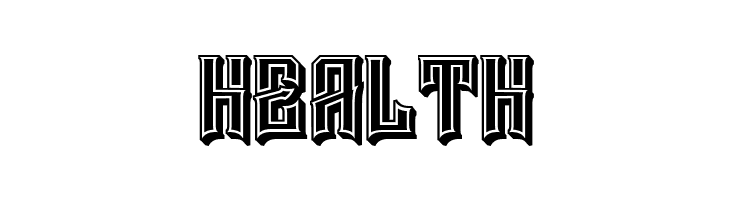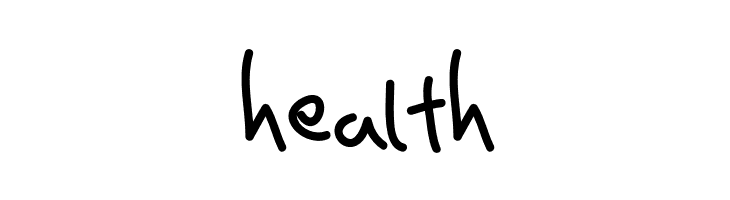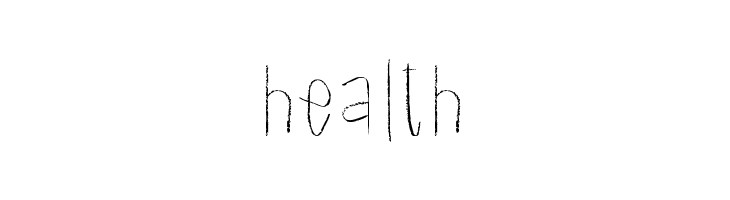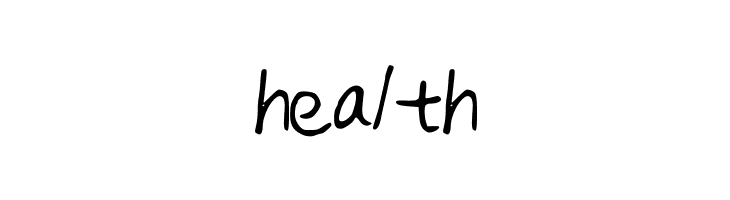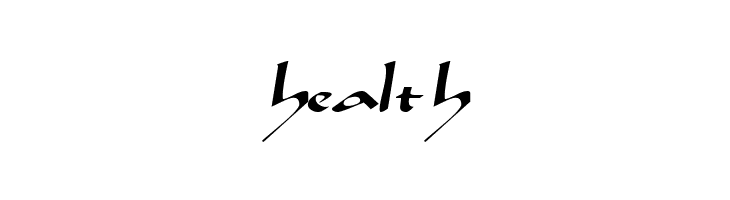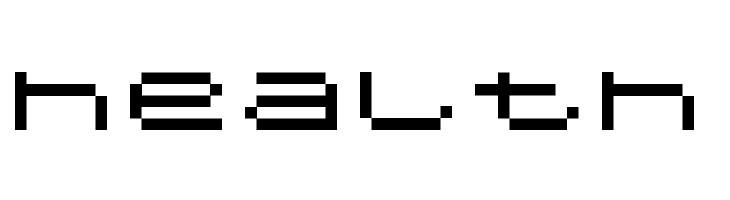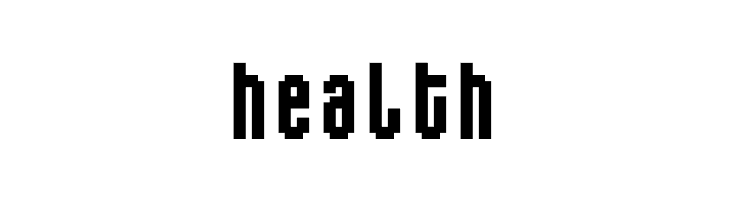
( Vladimir Nikolic - www.coroflot.com/vladimirnikolic )
A bold, 3D font with a vintage, embossed style.
( Wawan Hermawan )
A playful handwritten font with a casual and dynamic style.
( Xerographer Fonts - Max Infeld - xerographer.blogspot.com )
A whimsical, hand-drawn font with a sketch-like texture and playful style.
( Xerographer Fonts - Max Infeld - xerographer.blogspot.com )
A whimsical, elegant font with tall, narrow, hand-drawn characters.
( Zansari - Zaffar Ansari - www.zansarifont.com )
A bold, dynamic brush-style font with fluid, expressive strokes.
( fearlessforever13 - www.fontspace.com/fearlessforever13 )
A playful and casual handwritten font with smooth, rounded letterforms.
A vintage typewriter-style font with bold, irregular characters and a distressed texture.
( ArtsyLady - artsylady.8m.com/fonts/fontpage.htm )
An ornate, decorative font with floral embellishments and calligraphic elements.
( Barmee - www.nowak.tv/fontoholic )
A pixelated, grid-based font with a retro digital style.
( Barmee - www.nowak.tv/fontoholic )